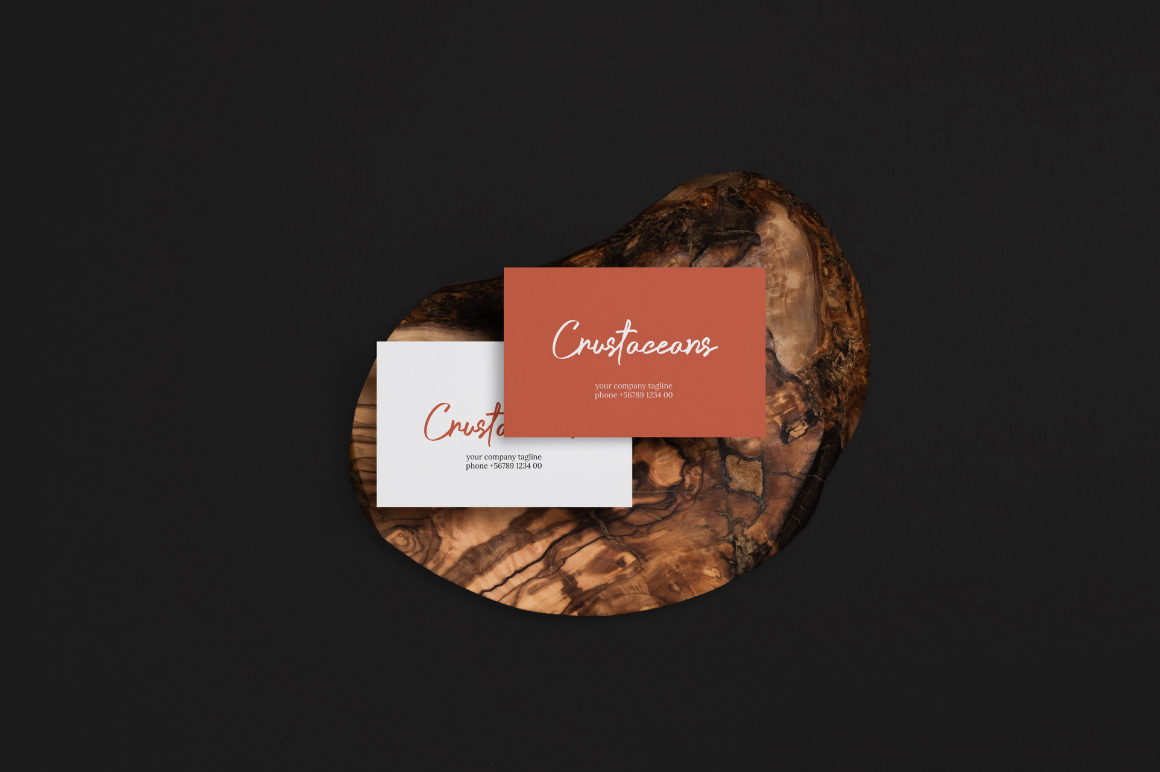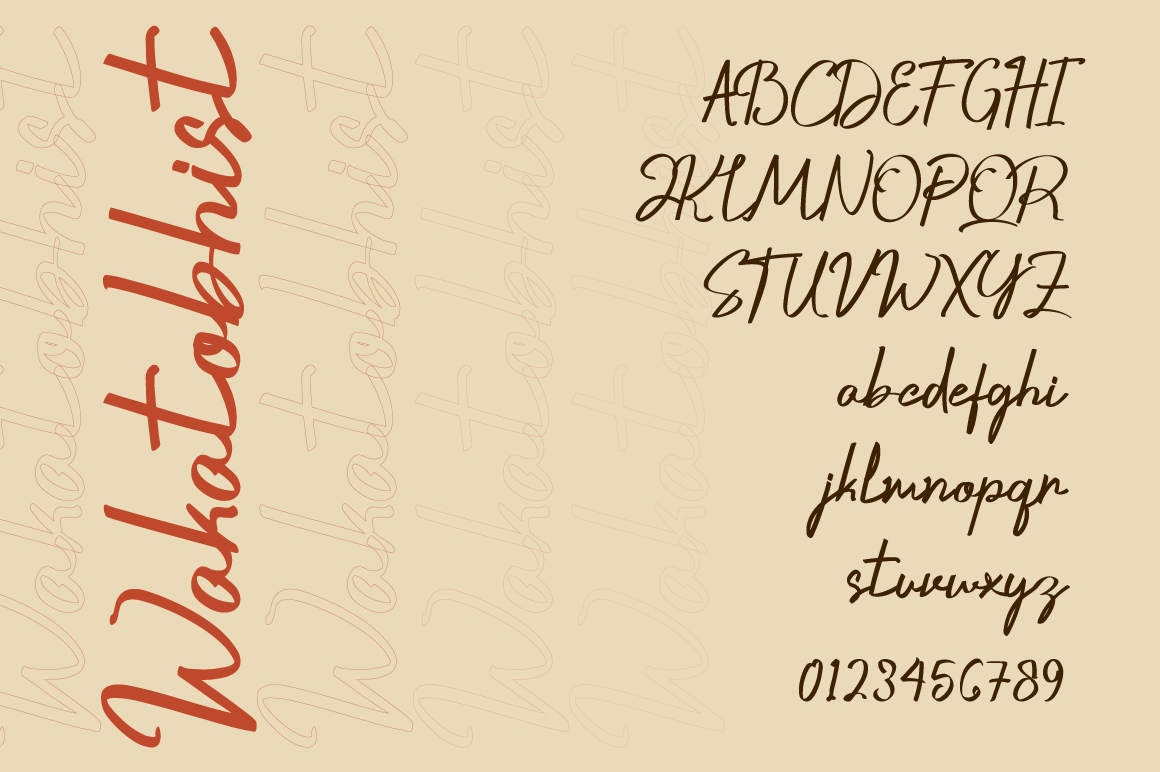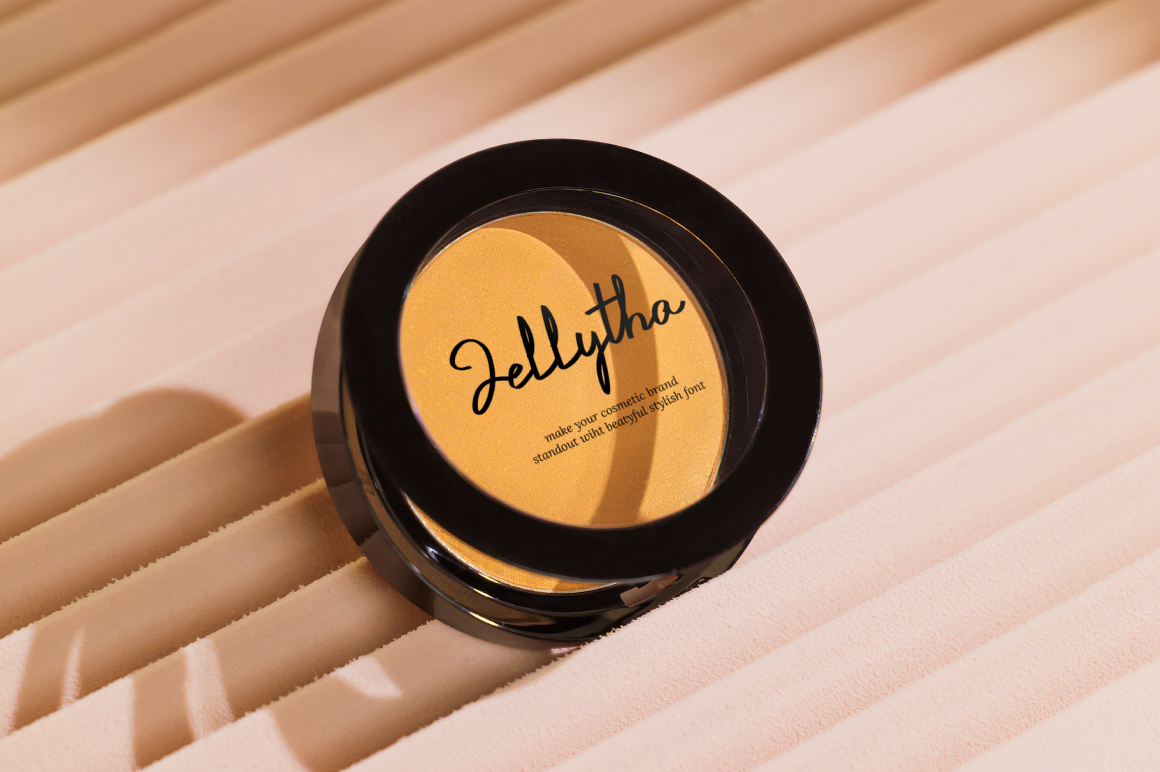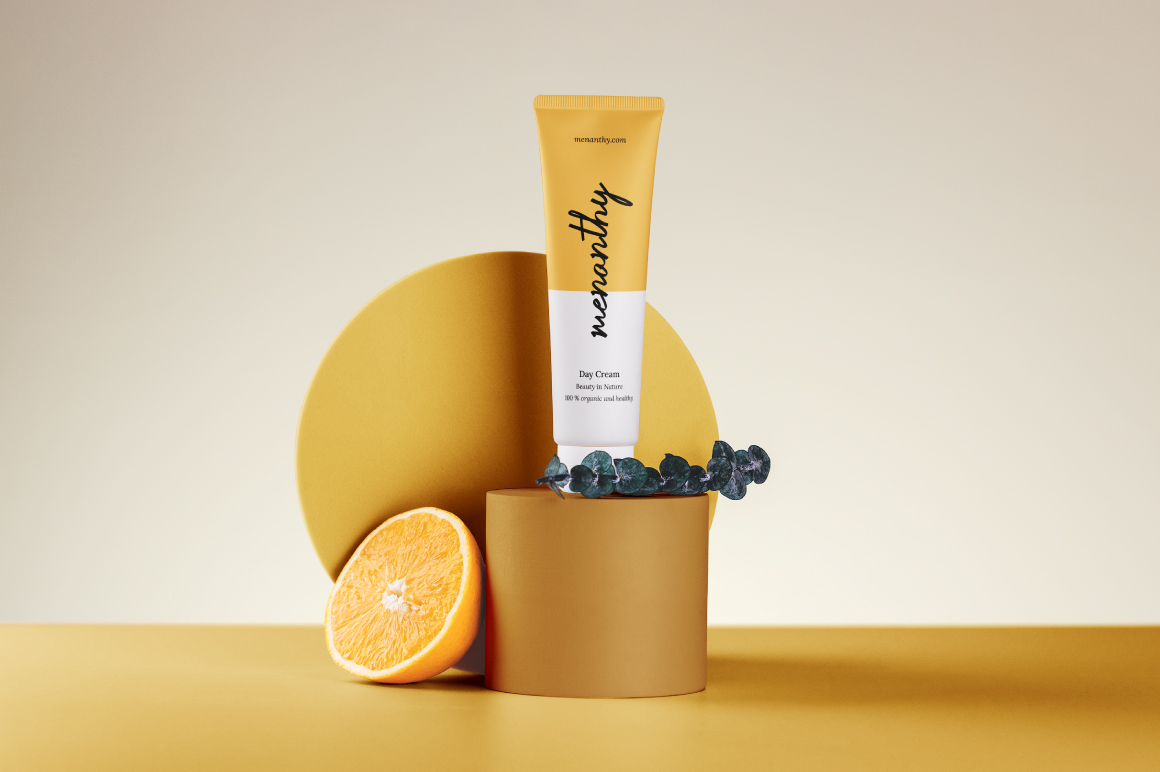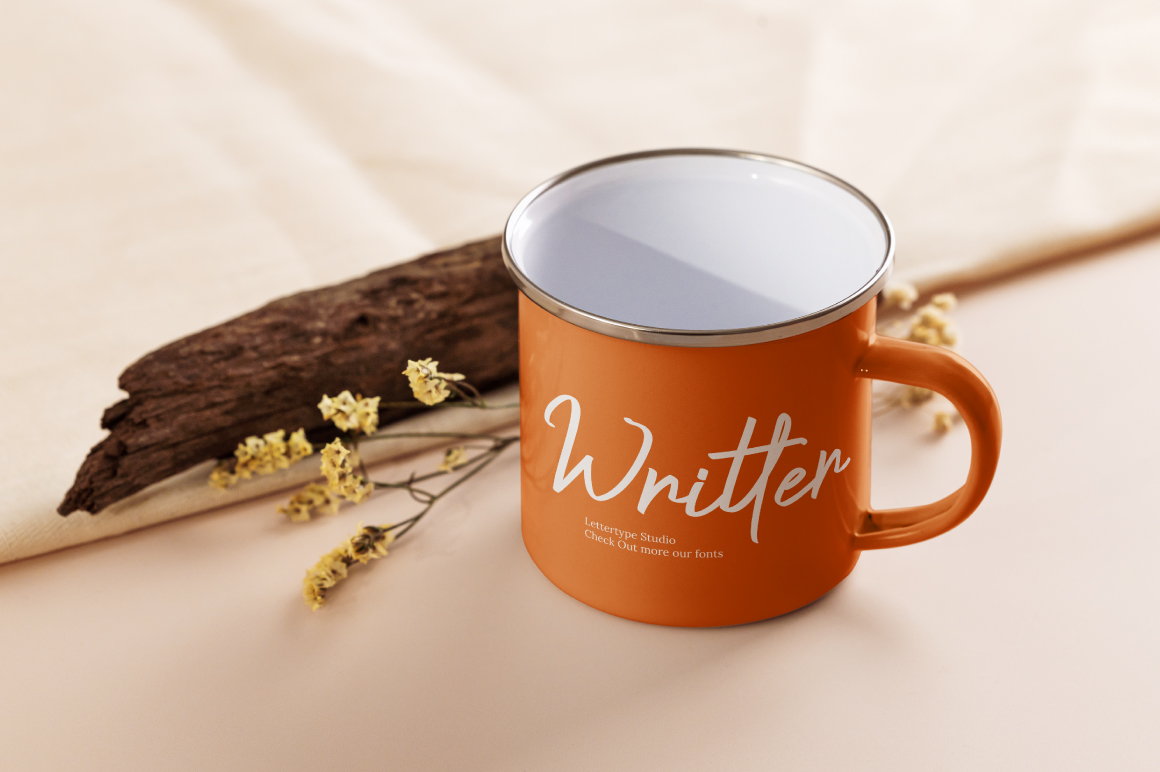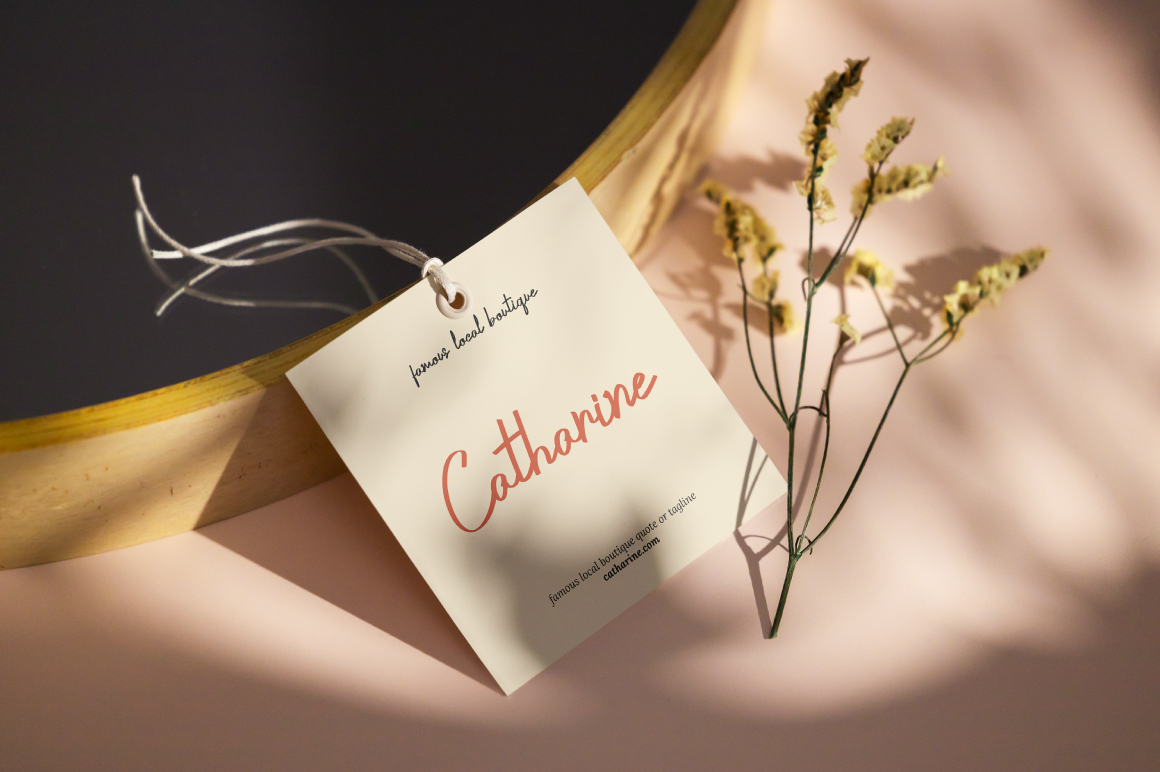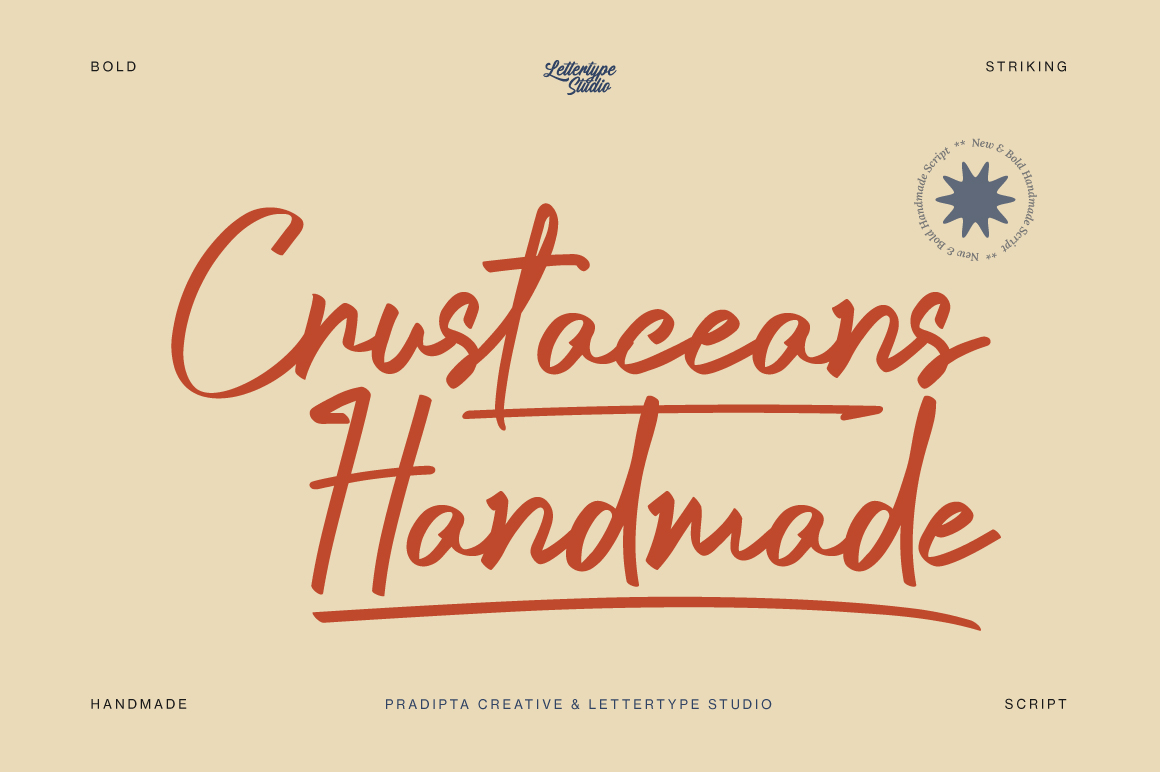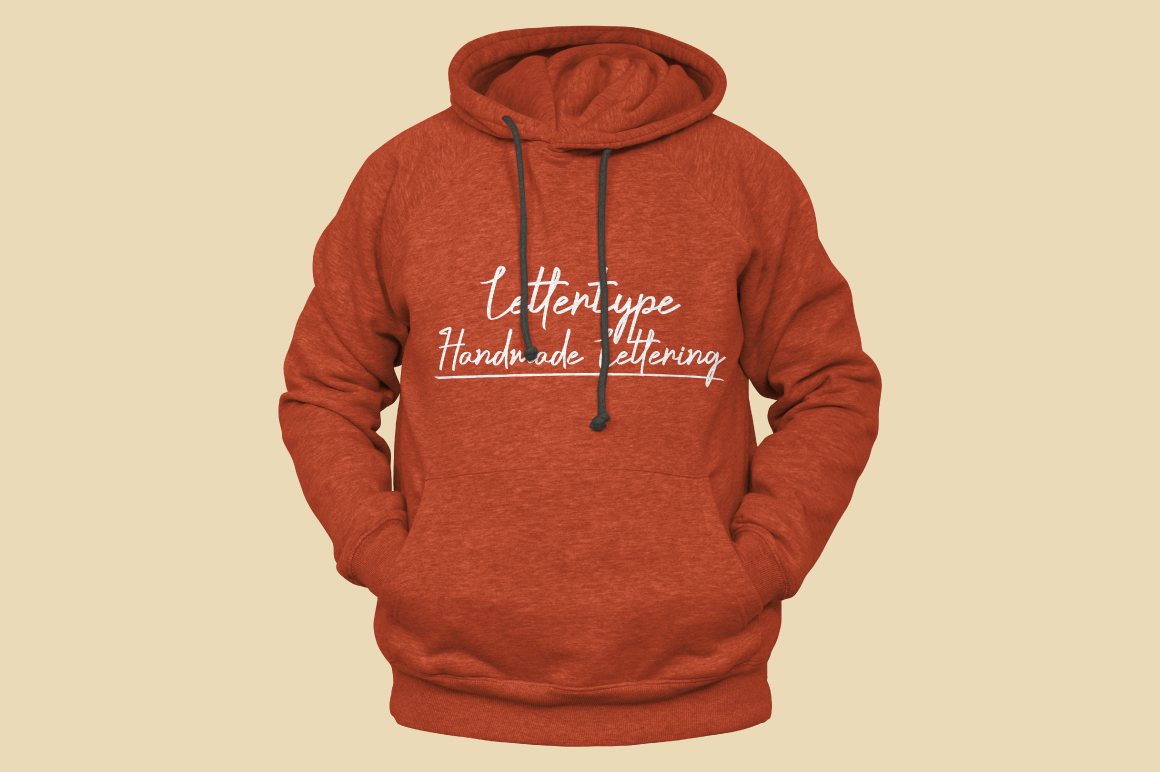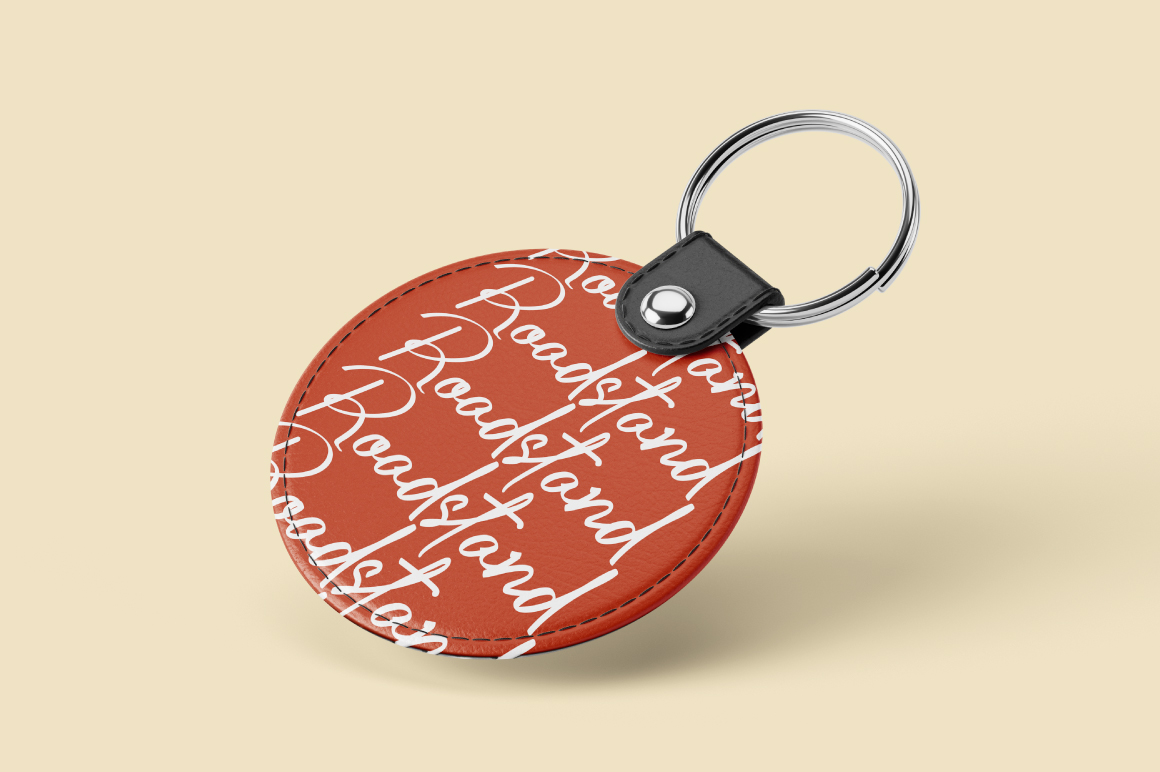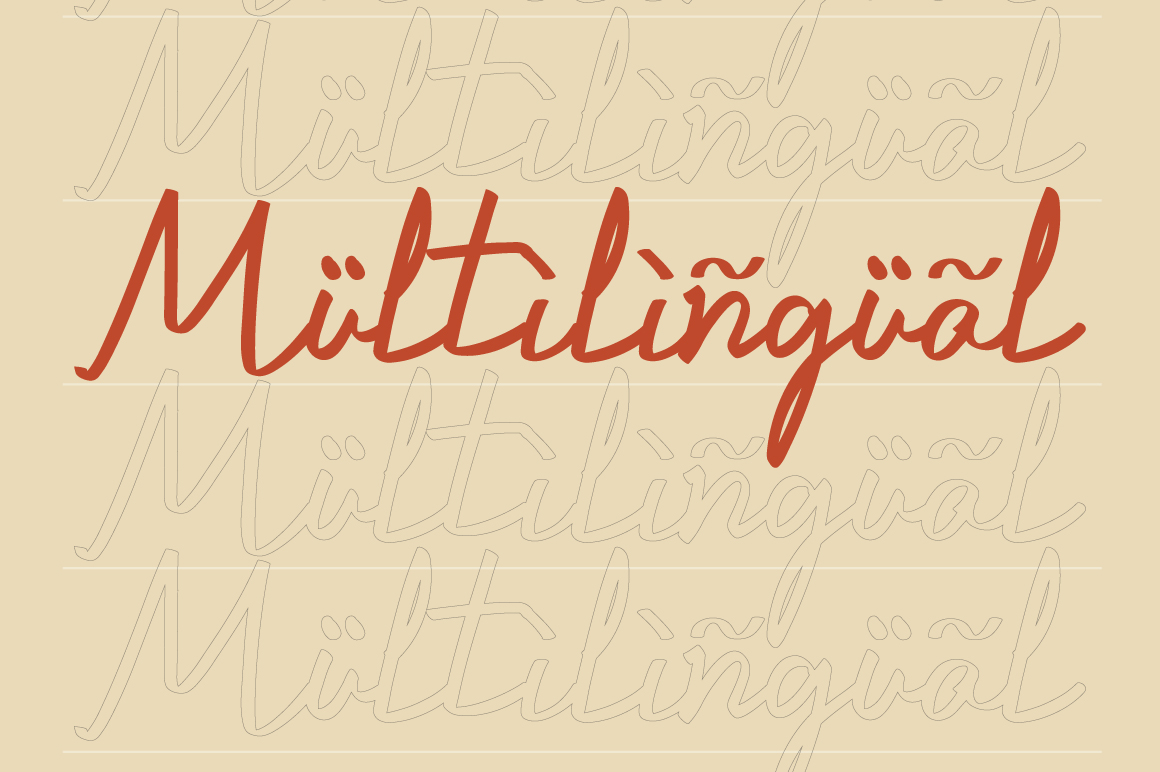
Crustaceans Signature
Crustaceans Signature is a bold and striking handmade script font designed to make your designs stand out. It features expressive curves and fluid strokes that give your work an authentic handwritten look with modern sophistication.
Perfect for branding, photography watermarks, invitations, packaging, and social media graphics, Crustaceans Signature combines elegance and strength in one stylish form. Whether for logos or editorial layouts, it adds confidence and personality to every creative project.
Crustaceans Signature Features:
• 240+ Language Support